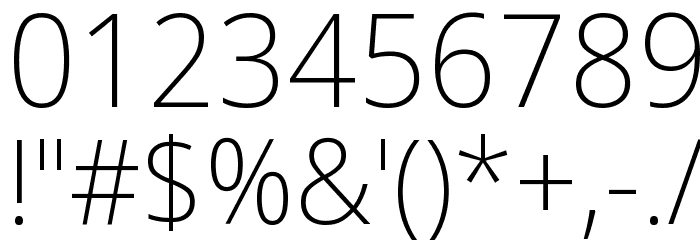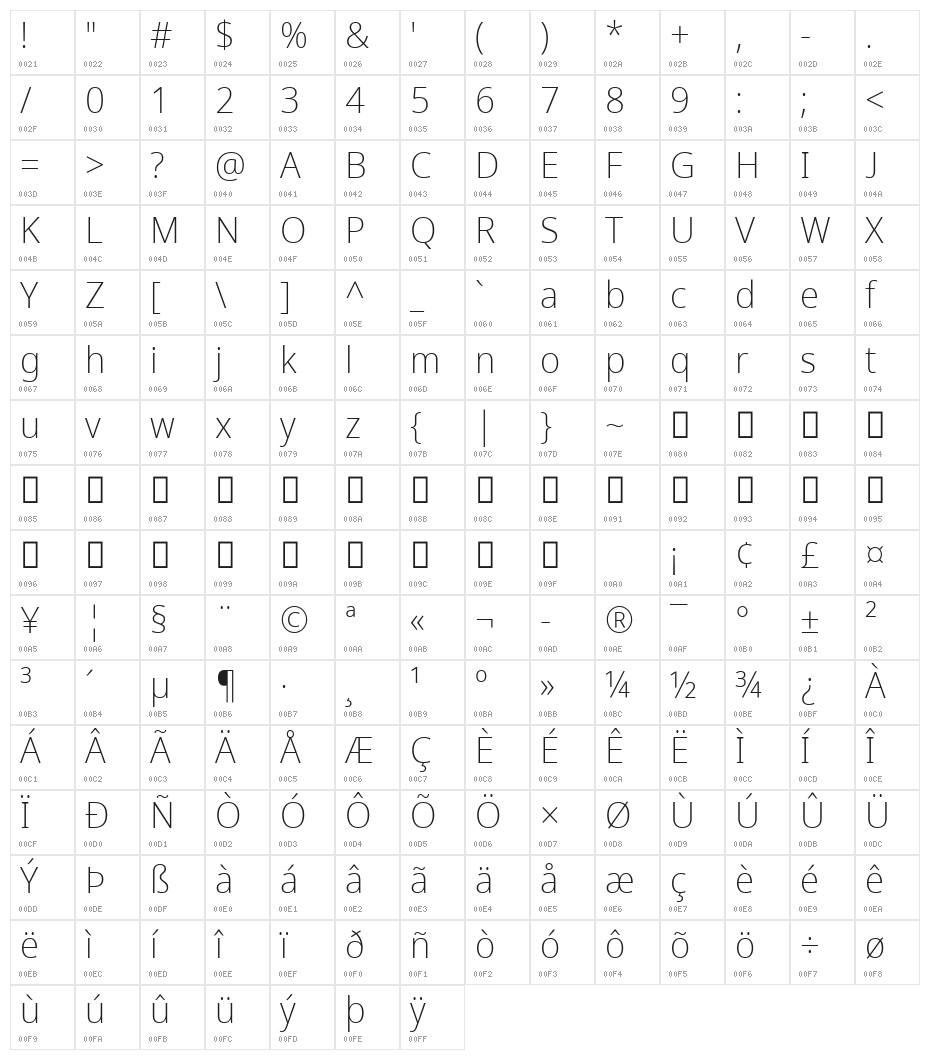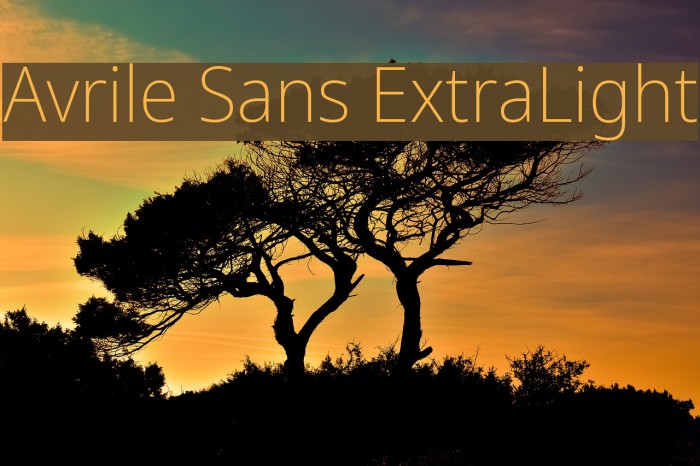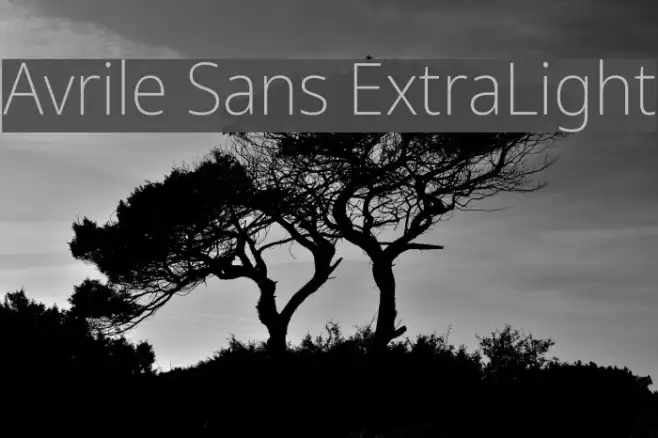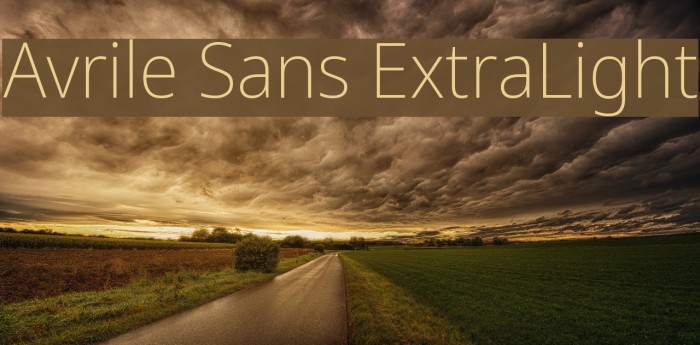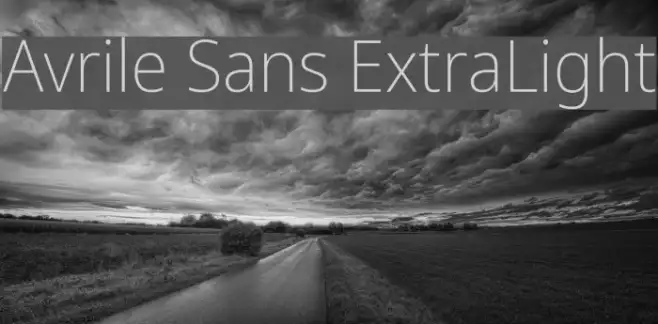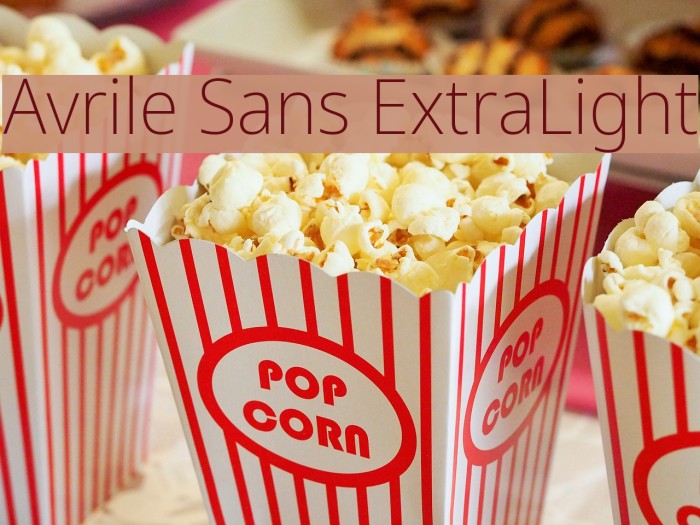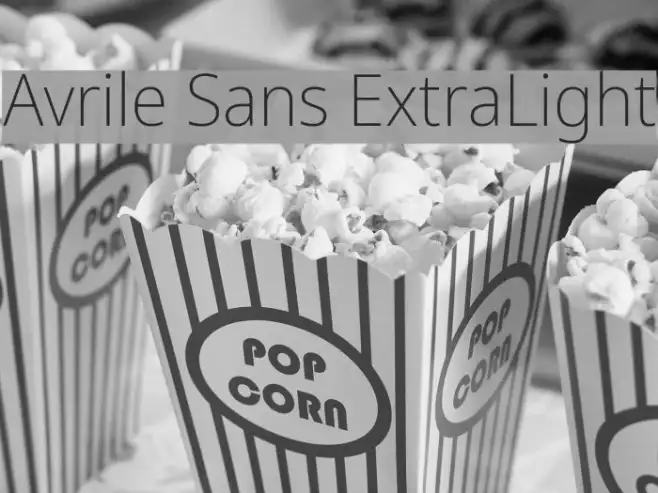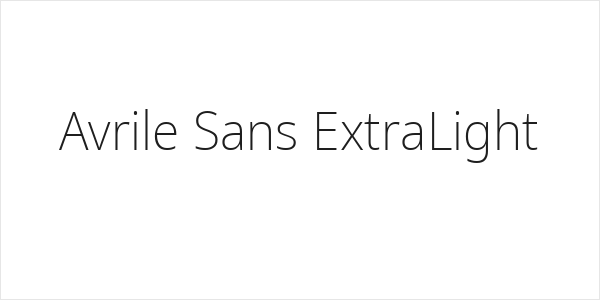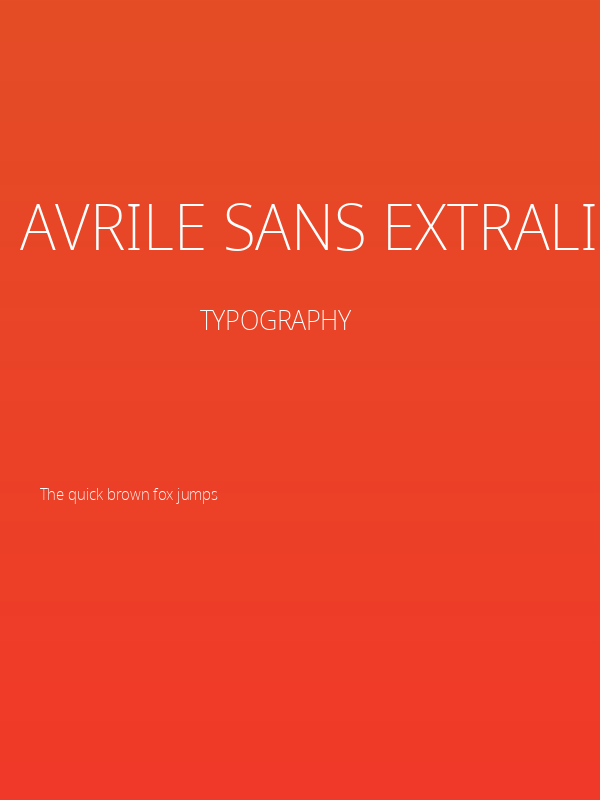
Avrile Sans ExtraLight Font
Avrile Sans ExtraLight Description
This typeface is characterized by its clean and minimalist design, featuring thin, uniform strokes that convey a sense of modernity and elegance. The characters are well-proportioned with a consistent height, creating a harmonious and balanced appearance. The font's simplicity makes it versatile for various applications, while its extra light weight adds a touch of sophistication. The spacing between characters is normal, ensuring readability and clarity. The overall style is modern and sleek, suitable for contemporary design projects.